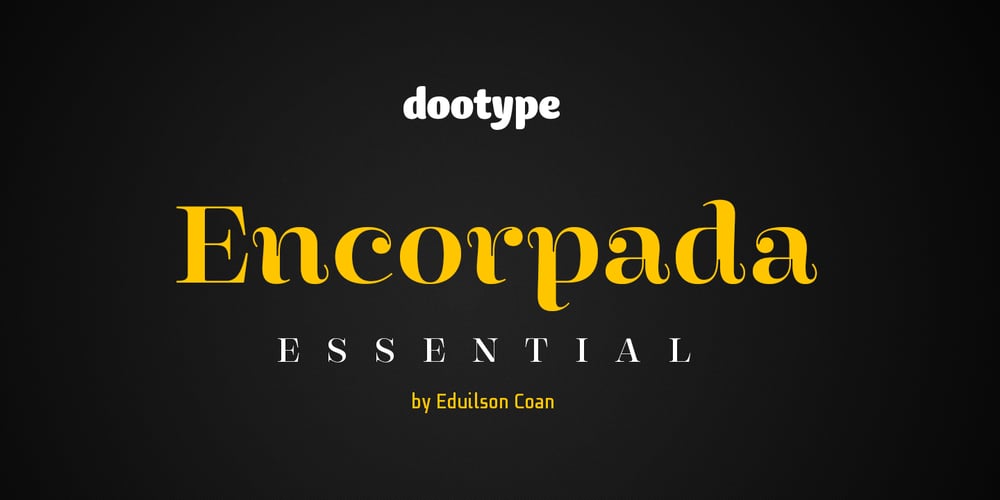
Encorpada Essential Font Family was designed by Eduilson Wessler Coan and published by dooType. Encorpada Essential contains 14 styles and family package options. Encorpada Essential is part of Encorpada Project. It started in 2011 with Encorpada Black. Encorparda Pro was released in 2012 with 14 weight – being seven uprights and seven italics. The Pro version brought a lot of opentype features and a extended character set. The Encorpada Essential has the basic character set with 455 glyphs, that supports more than 50 languages and opentype’s basic features such as: allcaps, standard and discretionary ligatures, numerator, denominator, superior, inferior and fractions. Check out the details on Encorpada Project website.